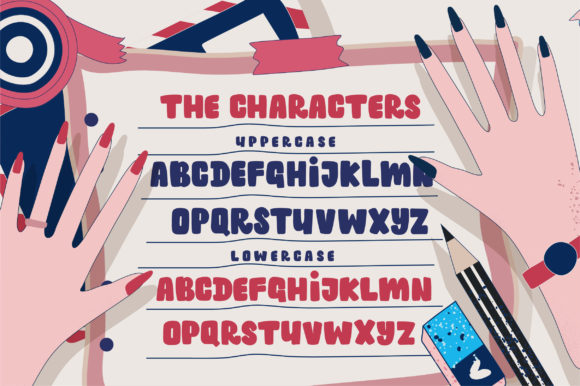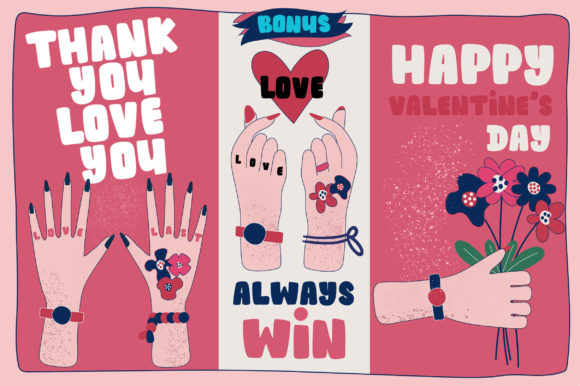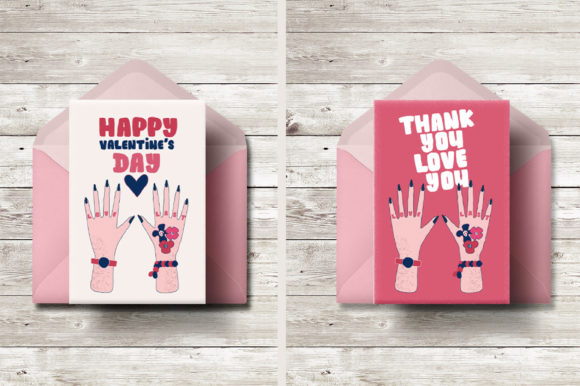
Introducing Great Heart Font: The Perfect Handmade Bold Font for Designers and Crafters
Are you a designer or crafter looking for a unique and eye-catching font to elevate your creative projects? Look no further than Great Heart Font, a handmade bold font that’s perfect for posters, texts, titles, and much more! In this article, we’ll dive into the features and benefits of Great Heart Font, and explore how it can add a touch of personality and whimsy to your designs.
What is Great Heart Font?
Great Heart Font is a carefully crafted, handmade bold font that’s designed to make a statement. With its unique and playful style, it’s perfect for designers and crafters who want to add a personal touch to their projects. Whether you’re creating posters, flyers, brochures, or social media graphics, Great Heart Font is sure to grab attention and leave a lasting impression.
Key Features of Great Heart Font
- Handmade with love: Great Heart Font is carefully crafted by hand, giving it a unique and personal touch that’s hard to find in digital fonts.
- Bold and eye-catching: With its bold and playful style, Great Heart Font is perfect for making a statement and grabbing attention.
- Versatile: Great Heart Font can be used for a wide range of projects, from posters and flyers to social media graphics and more.
- Includes fun illustrations: As a bonus, Great Heart Font comes with a set of fun illustrations that can add an extra touch of personality to your designs.
Benefits of Using Great Heart Font
So why choose Great Heart Font for your next project? Here are just a few benefits of using this amazing handmade bold font:
- Adds a personal touch: With its handmade and unique style, Great Heart Font can add a personal touch to your designs that’s hard to find with other fonts.
- Stand out from the crowd: Great Heart Font is sure to grab attention and make your designs stand out from the crowd.
How to Use Great Heart Font
Using Great Heart Font is easy! Here are a few tips to get you started:
- Pair it with other fonts: Great Heart Font pairs well with other fonts, so feel free to experiment with different combinations to find the perfect look for your project.
- Use it for headings and titles: Great Heart Font is perfect for headings and titles, where its bold and playful style can really make an impact.
- Add illustrations: Don’t forget to take advantage of the bonus illustrations that come with Great Heart Font – they can add an extra touch of personality to your designs.